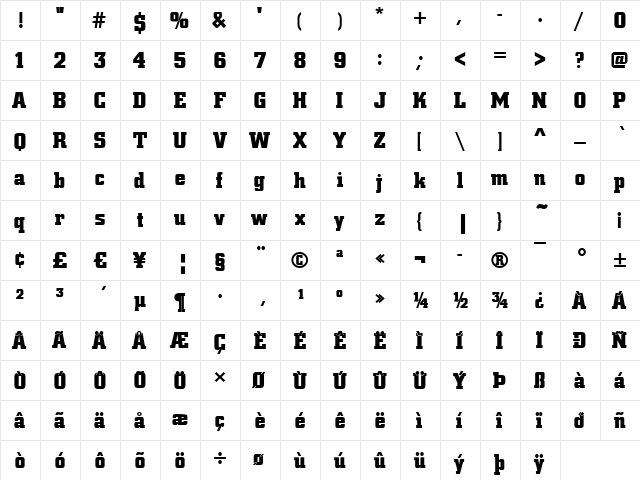
Centrum-Poster Bold
Design Context for Centrum-Poster Typeface
Centrum-Poster offers clean, dependable letterforms without strong stylistic allegiance, making it a practical choice for designers who need flexibility. Its bold stroke weight gives it real presence on the page.